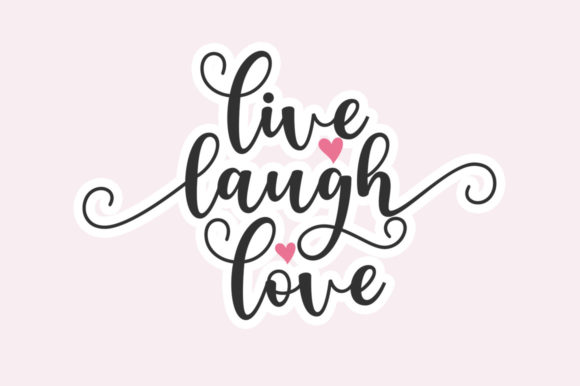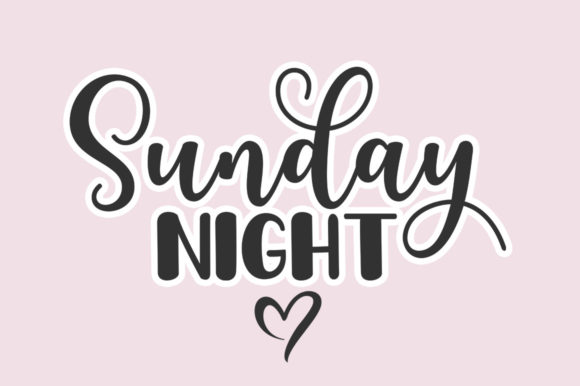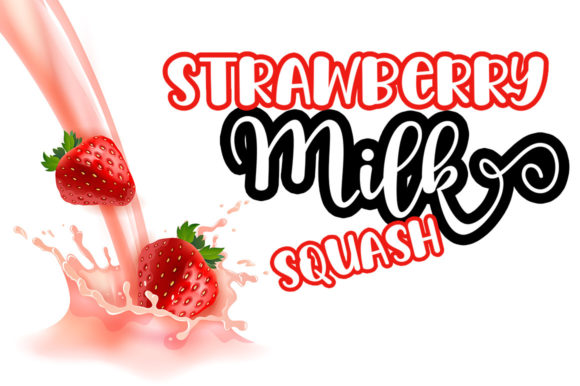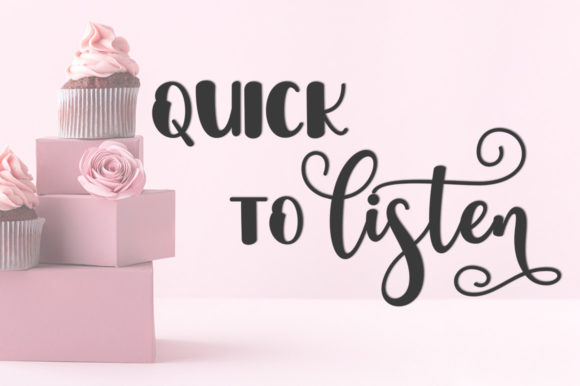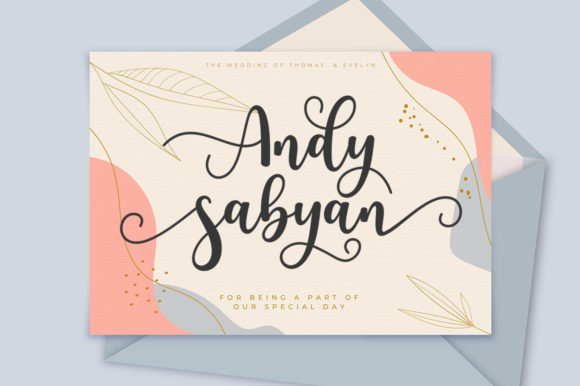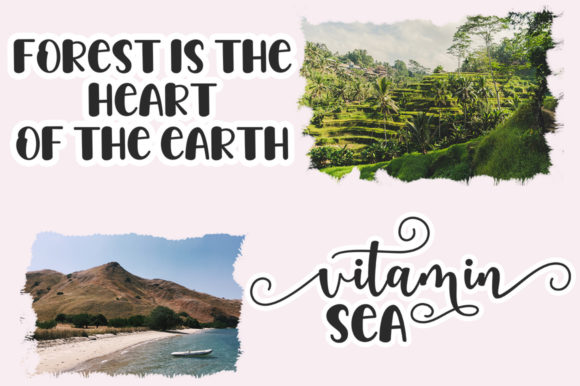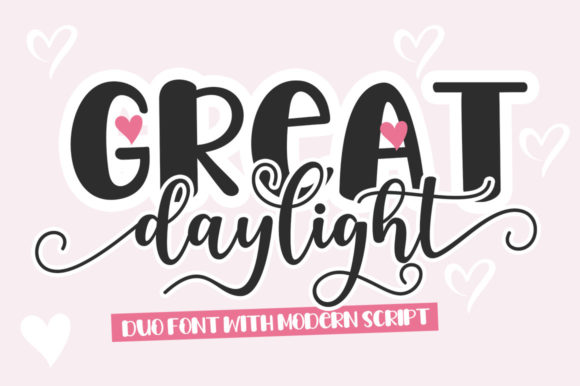
Introducing Great Daylight Duo Font: Elevate Your Designs with Versatility and Elegance
In the realm of typography, finding the perfect font that combines versatility, elegance, and ease of use can be a daunting task. However, for designers and crafters looking to elevate their projects, the Great Daylight Duo Font is a game-changer. This lovely duo font, consisting of a sans serif and a script font, is designed to meet the needs of creatives seeking to add a touch of sophistication and charm to their designs.
What Makes Great Daylight Duo Font Stand Out?
Great Daylight Duo Font is not just any ordinary font. It is PUA (Private Use Area) encoded, which means that accessing all the glyphs and swashes is incredibly straightforward. This feature is particularly beneficial for designers who want to experiment with different styles and elements without the hassle of complicated encoding. The PUA encoding ensures that you can easily access and use the extended character set, making your design process smoother and more efficient.
One of the standout features of the Great Daylight Duo Font is its incredible versatility. The duo font comes with a sans serif font that exudes modernity and cleanliness, perfect for headings, titles, and any design that requires a crisp look. On the other hand, the script font adds a touch of elegance and whimsy, ideal for adding a personal touch to your creations. Whether you’re working on a branding project, a wedding invitation, or a digital blog post, this font duo can adapt to any style or theme.
Design Possibilities Are Endless
With Great Daylight Duo Font, the design possibilities are virtually endless. Imagine creating stunning headings with the sans serif font, and then adding a personal, handwritten touch with the script font. The combination of these two fonts can add depth and interest to any design, making it stand out in a crowded digital landscape. Additionally, the inclusion of swashes and glyphs allows for further customization, enabling you to add unique flourishes that make your designs truly one-of-a-kind.
Great Daylight Duo Font is specifically designed with designers and crafters in mind. Whether you’re a professional graphic designer or a hobbyist who loves to dabble in DIY projects, this font duo is an excellent addition to your toolkit. Its user-friendly nature and extensive features make it accessible to creatives of all skill levels. Moreover, the font’s versatility ensures that it can be used across a wide range of projects, from digital designs to print materials.
Why Choose Great Daylight Duo Font?
There are several reasons why Great Daylight Duo Font should be your go-to choice for your typography needs:
- Unique and Versatile: Offers a unique combination of sans serif and script fonts, allowing for a wide range of design possibilities.
- PUA Encoded: Makes it easy to access and use glyphs and swashes, streamlining your design process.
- Elegant and Modern: Adds a touch of elegance and modernity to your designs, making them stand out.
- User-Friendly: Suitable for designers and crafters of all skill levels, with an intuitive design that simplifies the creative process.
Great Daylight Duo Font is more than just a font – it’s a design solution that offers versatility, elegance, and ease of use. Whether you’re looking to create spectacular designs for digital platforms or craft beautiful print materials, this font duo is an invaluable resource. With its PUA encoding, extensive glyphs and swashes, and the perfect blend of sans serif and script styles, Great Daylight Duo Font is set to become your new favorite companion in the world of design.